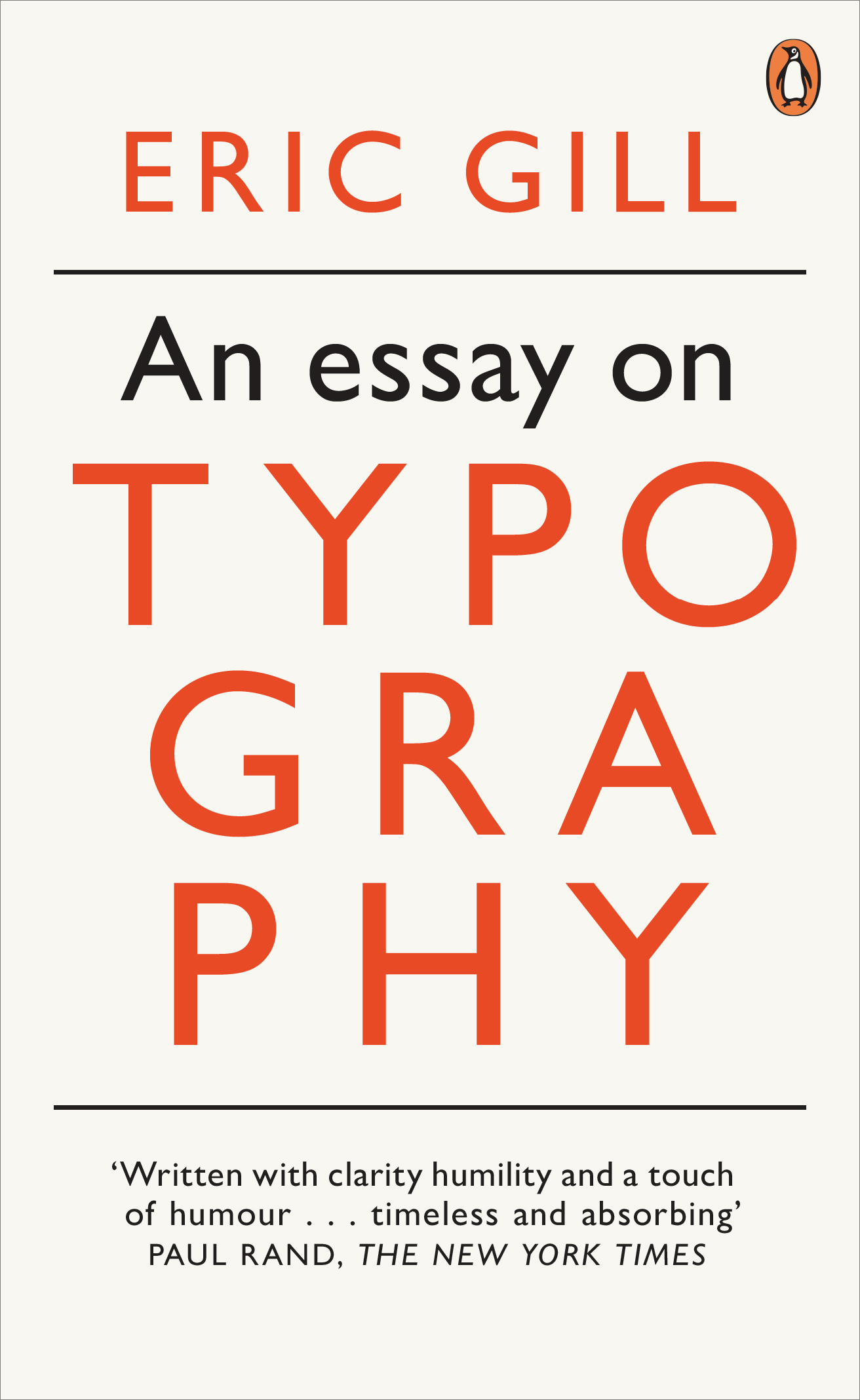
An Essay on Typography
Eric Gill's opinionated manifesto on typography argues that 'a good piece of lettering is as beautiful a thing to see as any sculpture or painted picture'. This essay explores the place of typography in culture and is also a moral treatise celebrating the role of craftsmanship in an industrial age. Gill, a sculptor, engraver, printmaker and creator of many classic typefaces that can be seen around us today, fused art, history and polemic in a visionary work which has been hugely influential on modern graphic design.
'Written with clarity, humility and a touch of humour . . . timeless and absorbing' Paul Rand, The New York Times
'His lettering was clear, confident and hugely influential on the development of modern type design. The world has now caught up with Gill' Guardian